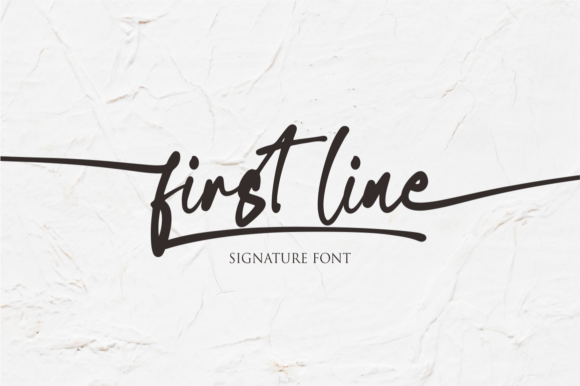
Immerse yourself in the enchanting world of First Line Font, a captivating script font family specifically designed to elevate your signature logo to new heights of sophistication. Step into a realm where creativity and expression dance together, leaving an indelible mark on your audience.
First Line Font is not just a font; it's a statement of individuality, a reflection of your unique style and personality. Its meticulously crafted characters, reminiscent of flowing brushstrokes, add a touch of elegance and charm to your designs, making them stand out from the ordinary.
With effortless penmanship, First Line Font glides across your digital canvas, painting words that captivate and inspire. Its graceful curves and whimsical flourishes evoke a sense of nostalgia, transporting you back to the era of handwritten letters and personal connections.
As you explore the depths of this enchanting font collection, you'll discover a treasure trove of possibilities. From intricate monograms and eye-catching logos to heartfelt invitations and personalized branding, First Line Font effortlessly adapts to your creative vision.
Unleash your inner artist and let your imagination run wild as you craft mesmerizing visuals that resonate with your audience. Whether you're a seasoned designer or just starting your creative journey, First Line Font is your trusted companion, guiding you towards greatness.
First Line Font isn't just a tool; it's an experience. It invites you to embark on a voyage of self-expression, where every letter you type becomes a testament to your creativity and passion. Elevate your designs, captivate your audience, and leave a lasting impression with First Line Font.